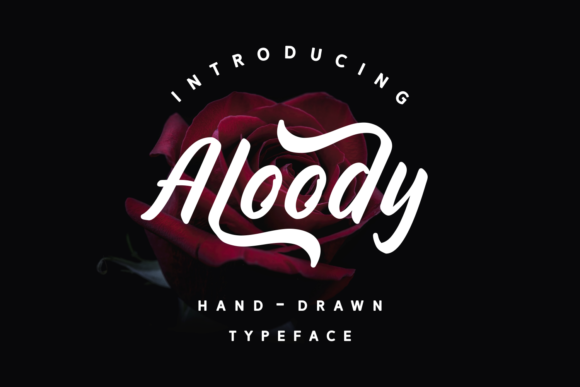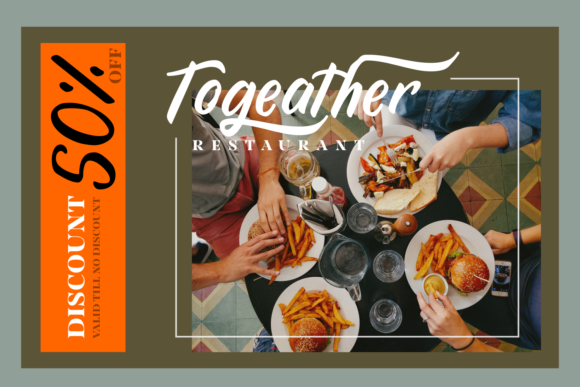
Aloody Font
About Aloody Font
Aloody is a gorgeous hand-drawn typeface featuring bold, strong swashes.
These decorative extras make it the perfect font for creating impact-ful designs, such as headlines, posters, banners and much more.